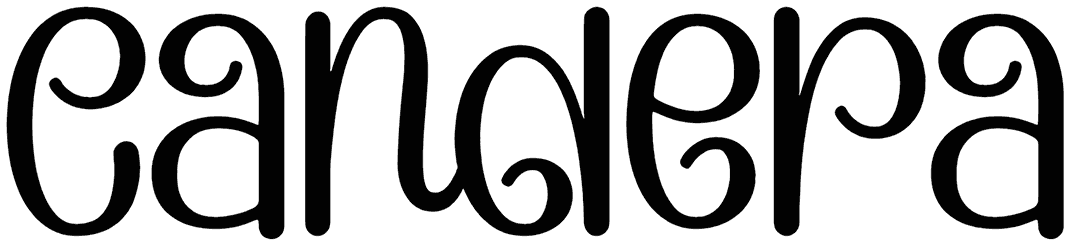
Candera Font
Since overusing formal and repetitive fonts would be a real danger to the quality of your content, we would like to advise you to pick up a lovely curly font similar to the Candera as your plan B.
Due to its rounded style, this love font can bring a feeling of joy, tenderness, momentum, and jauntiness to all of your projects and makes them look totally elegant. You can include this masterpiece in your magazines, illustrations, product packaging, or billboards.